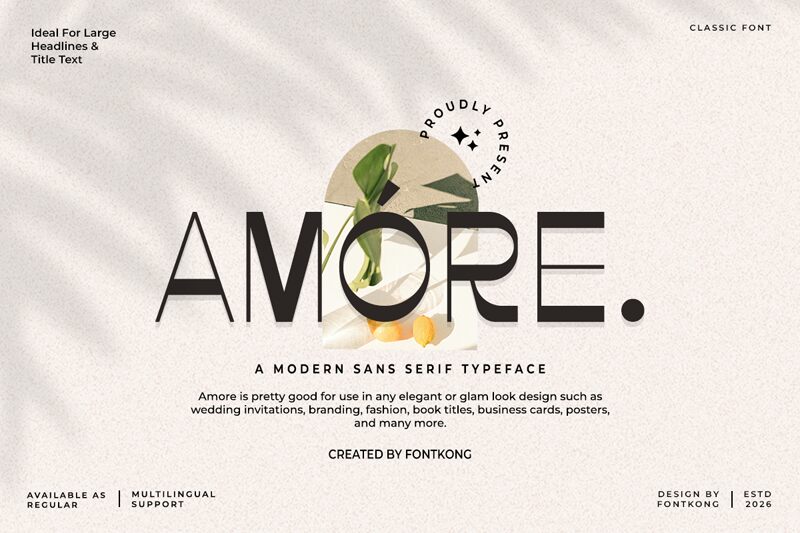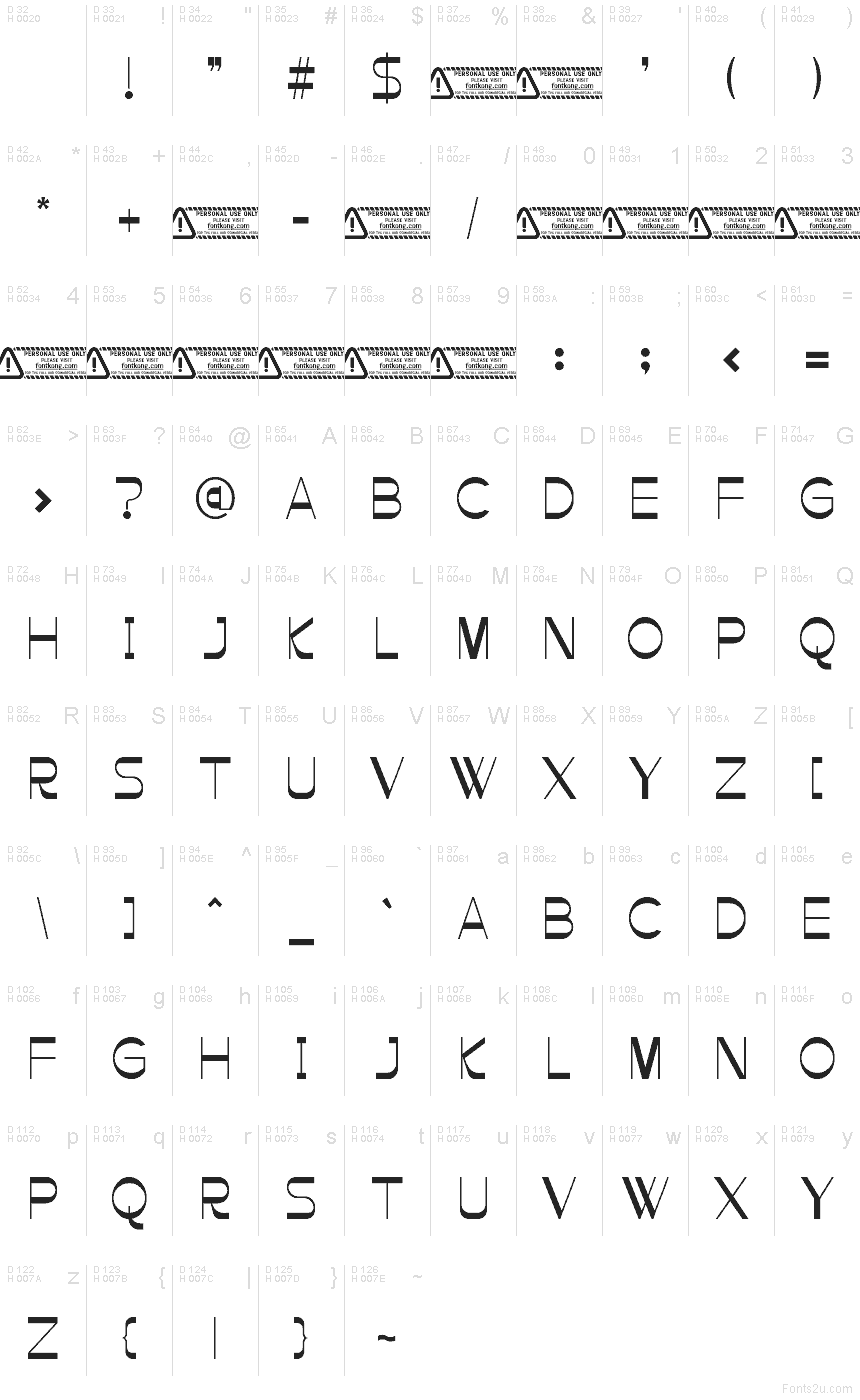
Amore font by Kong Font is a free sans serif typeface that turns five simple letters into a striking visual statement. Razor-thin strokes slice into tall, narrow forms, while the perfectly round “O” feels like a polished glass disc dropped into the word. The rhythm of sharp verticals and airy counters gives Amore a sleek, fashion-forward attitude-like a neon sign distilled into pure black-and-white lines.
Using Amore, you get a logo-ready wordmark feel straight out of the box, which shines on beauty branding, perfume packaging, fashion labels, editorial covers, posters, and event invitations. This free font loves generous letterspacing and works beautifully when paired with a clean, neutral grotesque for body text. Set Amore large to let those sculpted shapes breathe, and it instantly becomes the focal point of your layout.